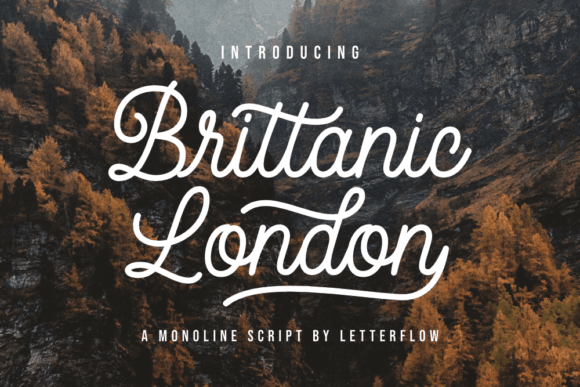
Introducing Brittanic London, a monoline script font that captivates with its elegant simplicity and effortless charm. Meticulously crafted by Letterflow Studio, this font family exudes a disarming allure that complements modern websites with an artistic flair. Its clean and elegant lines dance across the screen, leaving a trail of visual intrigue that draws the eye and sparks curiosity.
Uncover the beauty of Brittanic London's versatility. It's a font that seamlessly adapts to a myriad of design aesthetics, effortlessly enhancing branding, logos, quotes, and headlines. Its natural flow lends itself to handwritten notes and invitations, adding a touch of warmth and authenticity to your personal expressions.
With Brittanic London, typography transforms into an art form. Its delicate strokes and graceful curves create an aesthetic symphony, evoking emotions and captivating audiences. Let your designs embrace the timeless beauty of this script font, adding a touch of elegance and sophistication that elevates every creative project.
Embrace the power of storytelling with Brittanic London. Its enchanting charm weaves tales with every letter, inviting readers to immerse themselves in the narrative. The monoline script style evokes a sense of nostalgia, drawing them into a world of imagination and captivation.
Experience Brittanic London and unlock a world of design possibilities. Its versatility, elegance, and timeless appeal make it a must-have for any modern website or design project. Let your creativity flourish, let your designs speak volumes, and let Brittanic London guide you into the realm of captivating typography.